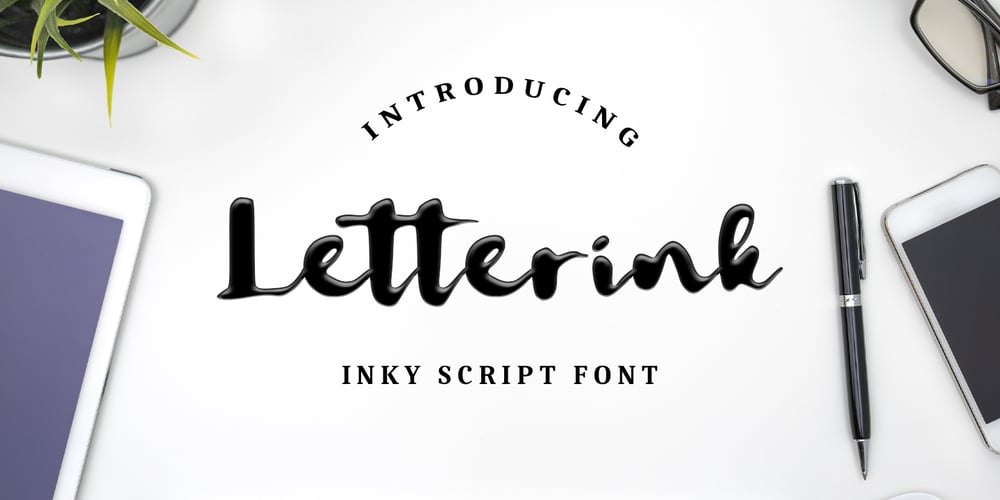
Letterink Font Family was designed by Abo Daniel and published by Abo Daniel. Letterink contains 1 styles and family package options. Letterink is a script font with an inky style. It’s great for branding, photography, invitations, quotes, watermarks, advertisements, product designs, labels, and much more! It comes with punctuation, multi-lingual support, and PUA encoding.